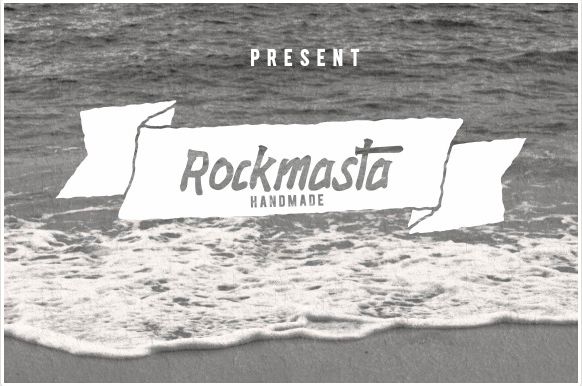
Font Frenzy: Rockmasta
Creative Market has a free font on offer called Rockmasta by Ijemrockart.
“Rockmasta” is a smooth hand marker, modern style marker, which was created to meet the needs of your next design project.
Comes with upper and lowercase characters, large set of punctuation glyphs, numerals, ligature, and supports international languages.